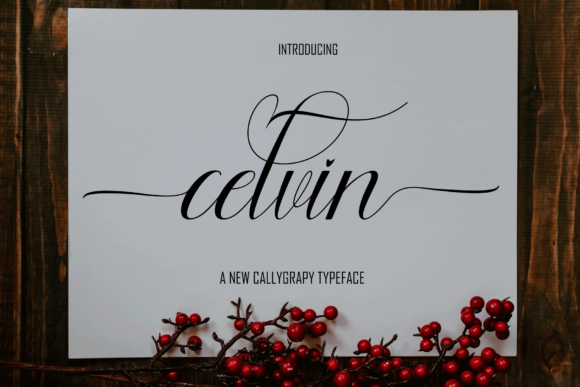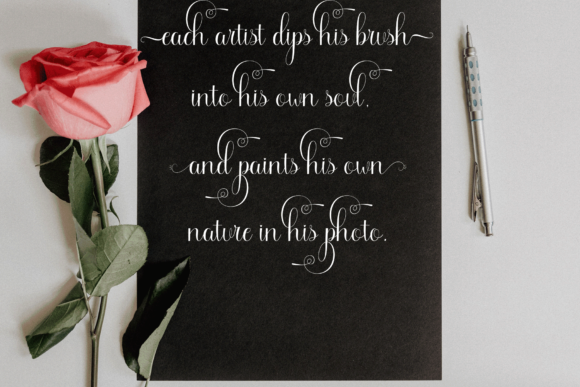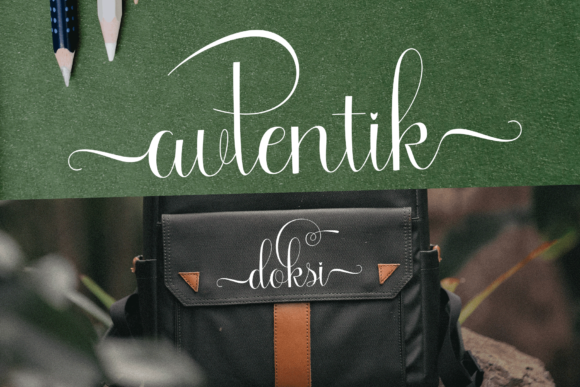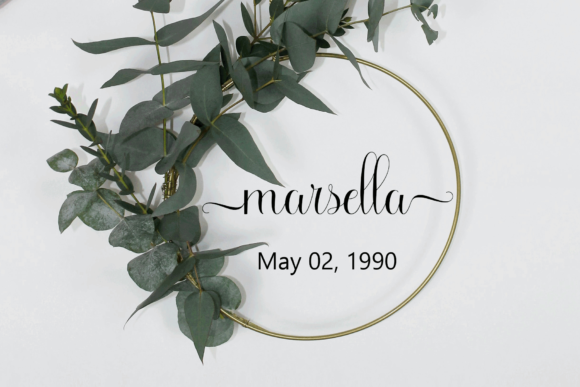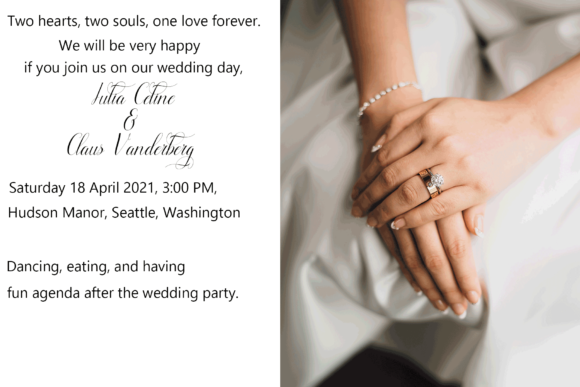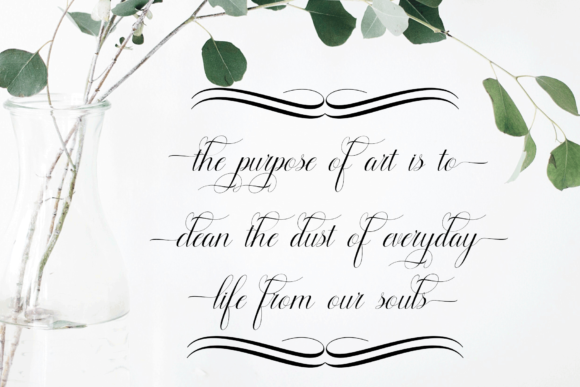
Introducing Celvin Font: The Elegant and Flowing Script Font
Are you looking for a font that exudes elegance and sophistication? Do you want to add a touch of handwritten charm to your designs? Look no further than Celvin Font, a stunning script font that is perfect for a variety of creative projects. In this article, we’ll take a closer look at Celvin Font and explore its features, uses, and benefits for designers and crafters.
What is Celvin Font?
Celvin Font is a beautifully crafted script font that feels incredibly elegant and flowing. Its smooth lines, gorgeous glyphs, and stunning alternates make it perfect for adding a touch of sophistication to any design. Whether you’re working on wedding invitations, thank you cards, quotes, greeting cards, logos, business cards, or any other design that needs a handwritten touch, Celvin Font is an excellent choice.
Key Features of Celvin Font
So, what makes Celvin Font so special? Here are some of its key features:
• Varying Baseline: Celvin Font features a varying baseline, which gives it a natural, handwritten feel. This makes it perfect for designs that need to look personal and unique.
• Smooth Lines: The font’s smooth lines and curves create a beautiful, flowing effect that is both elegant and sophisticated.
• Gorgeous Glyphs: Celvin Font comes with a range of gorgeous glyphs, including alternates, ligatures, and swashes. These glyphs allow you to add extra flair to your designs and make them stand out.
• Stunning Alternates: The font’s stunning alternates provide a range of options for customizing your designs. Whether you want to add a touch of whimsy or create a more formal look, Celvin Font’s alternates have got you covered.
Uses for Celvin Font
Celvin Font is a versatile font that can be used for a wide range of creative projects. Here are some ideas to get you started:
• Wedding Invitations: Celvin Font is perfect for wedding invitations, with its elegant and sophisticated feel making it ideal for formal wedding designs.
• Thank You Cards: Add a touch of handwritten charm to your thank you cards with Celvin Font.
• Quotes: Use Celvin Font to create beautiful quote designs that are perfect for social media, blogs, or marketing materials.
• Greeting Cards: Celvin Font is great for creating greeting cards for special occasions, such as birthdays, holidays, or anniversaries.
• Logos: Use Celvin Font to create a unique and elegant logo for your business or brand.
• Business Cards: Add a touch of sophistication to your business cards with Celvin Font.
So, what are the benefits of using Celvin Font for designers and crafters? Here are a few:
• Elegant and Sophisticated: Celvin Font adds an elegant and sophisticated touch to any design, making it perfect for formal or luxury brands.
• Handwritten Charm: The font’s handwritten feel adds a touch of personality and charm to designs, making them stand out from the crowd.
• Versatile: Celvin Font can be used for a wide range of creative projects, from wedding invitations to logos and business cards.
In conclusion, Celvin Font is a stunning script font that is perfect for designers and crafters looking to add a touch of elegance and sophistication to their designs. With its varying baseline, smooth lines, gorgeous glyphs, and stunning alternates, Celvin Font is a versatile font that can be used for a wide range of creative projects. Whether you’re working on wedding invitations, thank you cards, quotes, greeting cards, logos, business cards, or any other design that needs a handwritten touch, Celvin Font is an excellent choice.